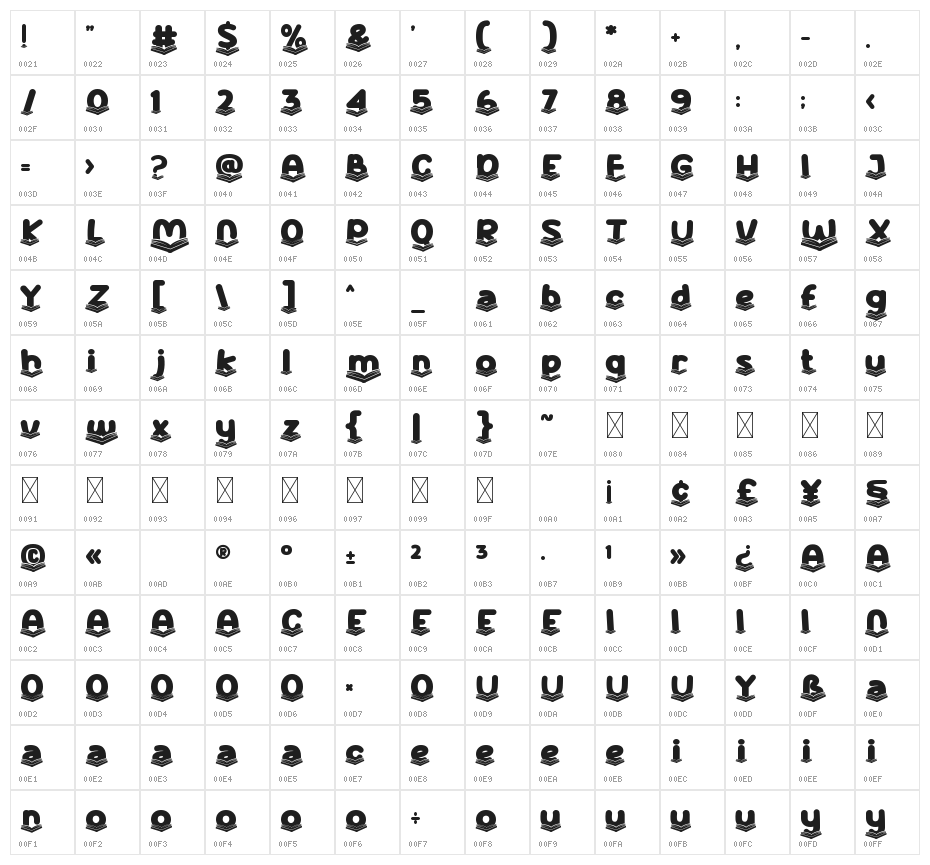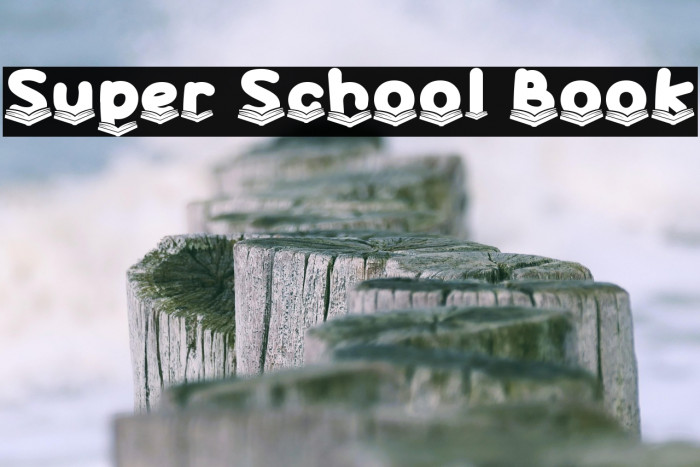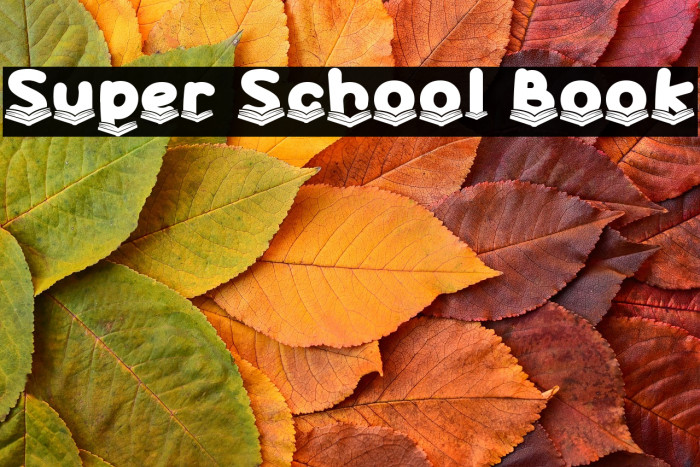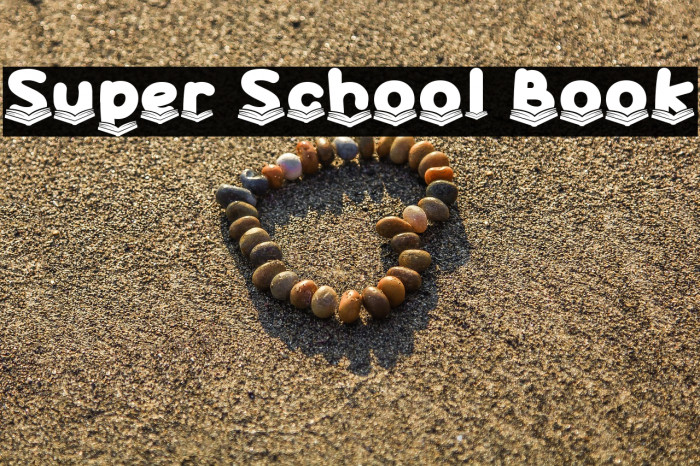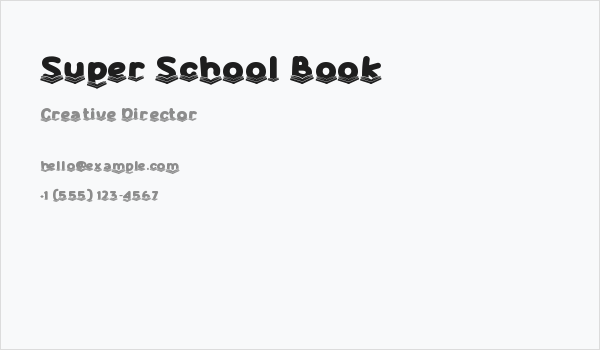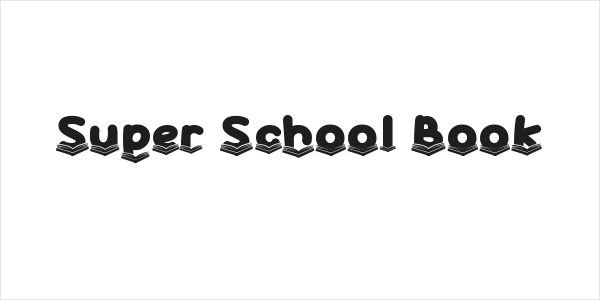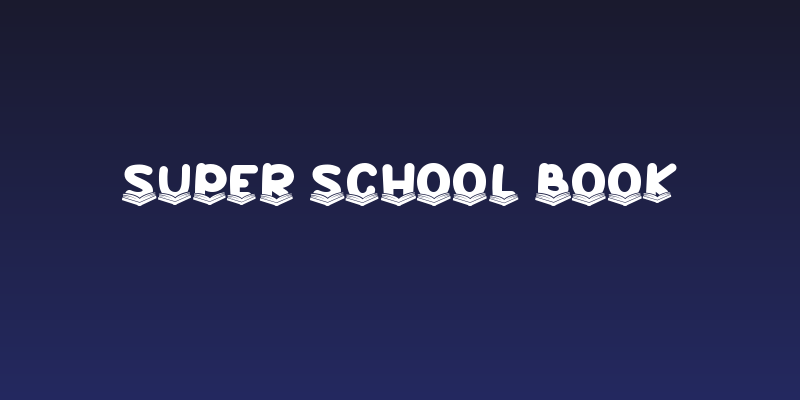
Super School Book Font
Super School Book Description
This playful and bold font features a unique design where each character is supported by an open book graphic, giving it a distinctive educational theme. The letters are rounded and thick, providing a strong visual impact. The font is highly decorative, making it ideal for projects that require a fun and engaging look. The consistent use of the book motif across all characters, including numbers and special symbols, adds to its cohesive style. The font's boldness and decorative elements make it suitable for children's books, educational materials, and playful branding projects.
| Overall Style | Playful, Educational, Decorative |
| Use Case | Headlines, Logos, Educational Materials |
| Proposed Projects | Ideal for children's books, educational materials, playful branding, and school-related designs. |